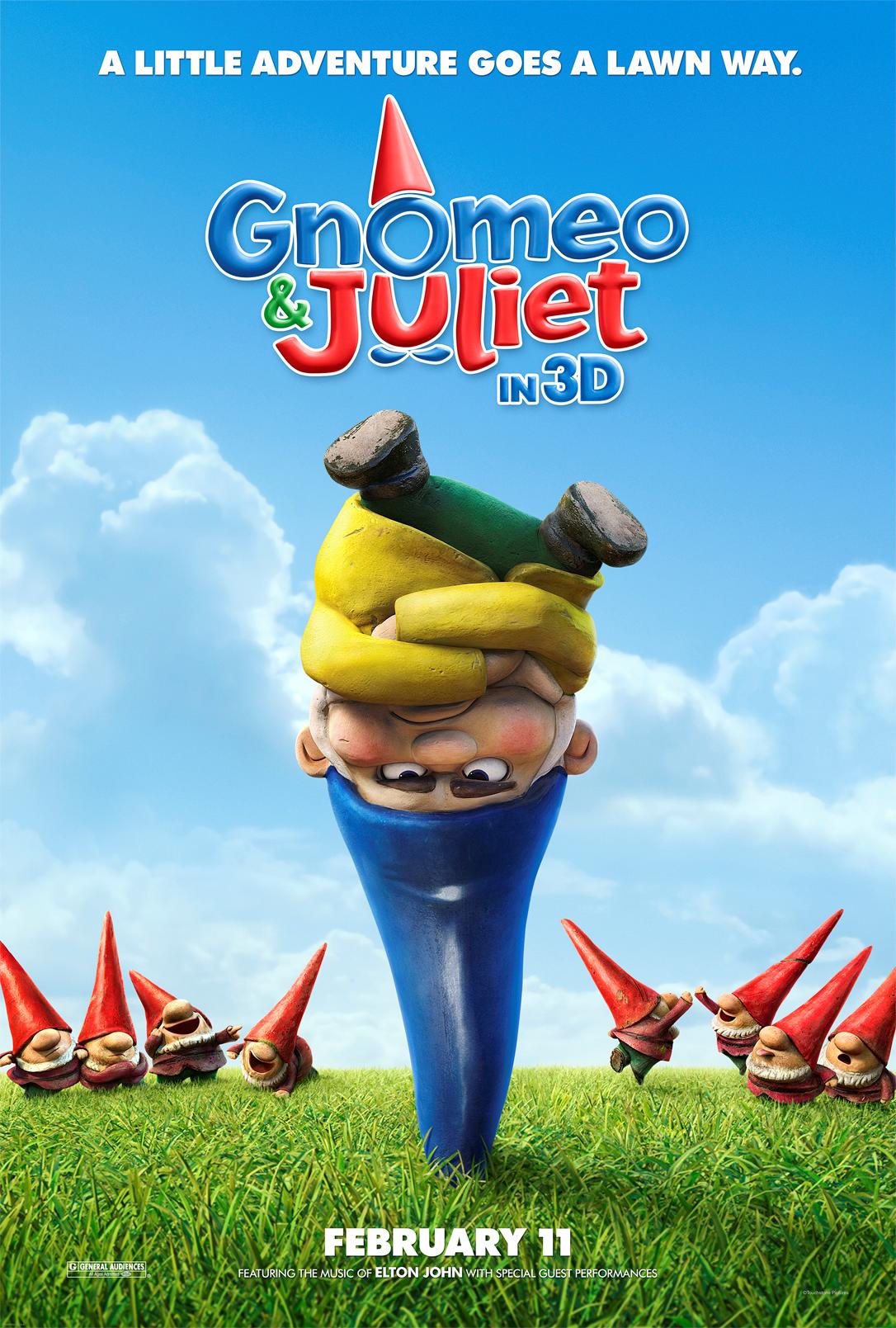
Gnomeo & Juliet Font
AnimationGnomeo & Juliet is a 2011 3D computer-animated fantasy film directed by Kelly Asbury featuring garden gnomes Gnomeo and Juliet as they navigate their forbidden love and the rivalries between their respective gardens.
The Gnomeo & Juliet title in the poster is written in a fun display font Jacoby Black. Designed by Calvin Glenn in 1995, Jacoby comes in three weights with matching italics.